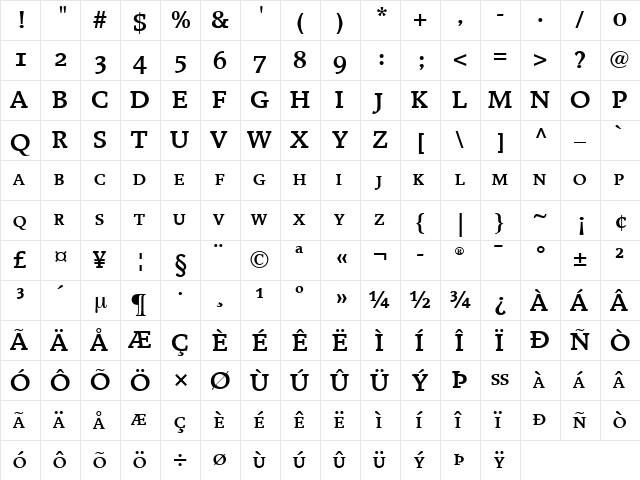
Breughel LT RegularSC Bold
Design Context for Breughel LT RegularSC Typeface
Breughel LT RegularSC takes a measured approach to typography — its balanced proportions and neutral character make it a reliable workhorse for both digital and print work. Its bold stroke weight gives it real presence on the page.